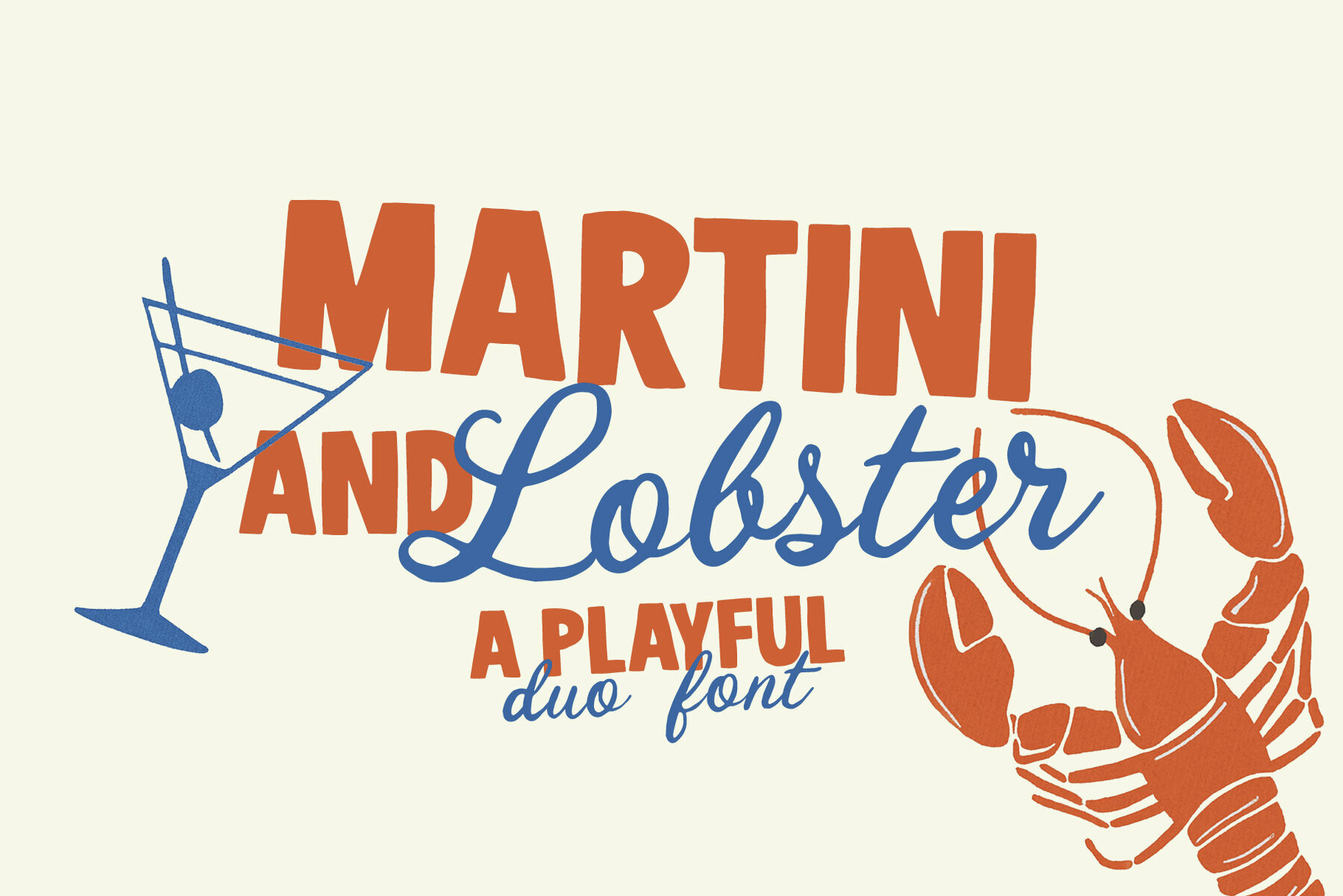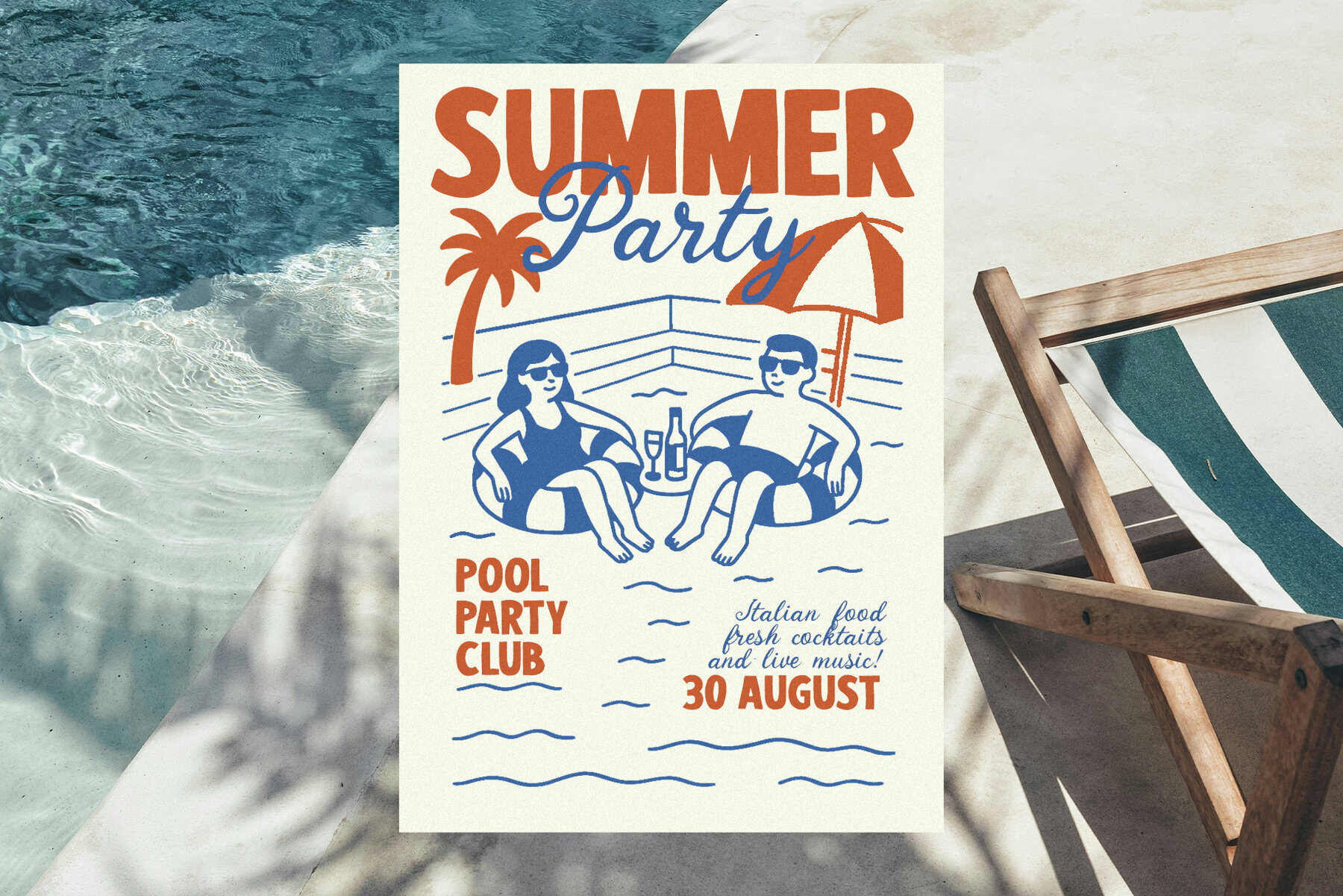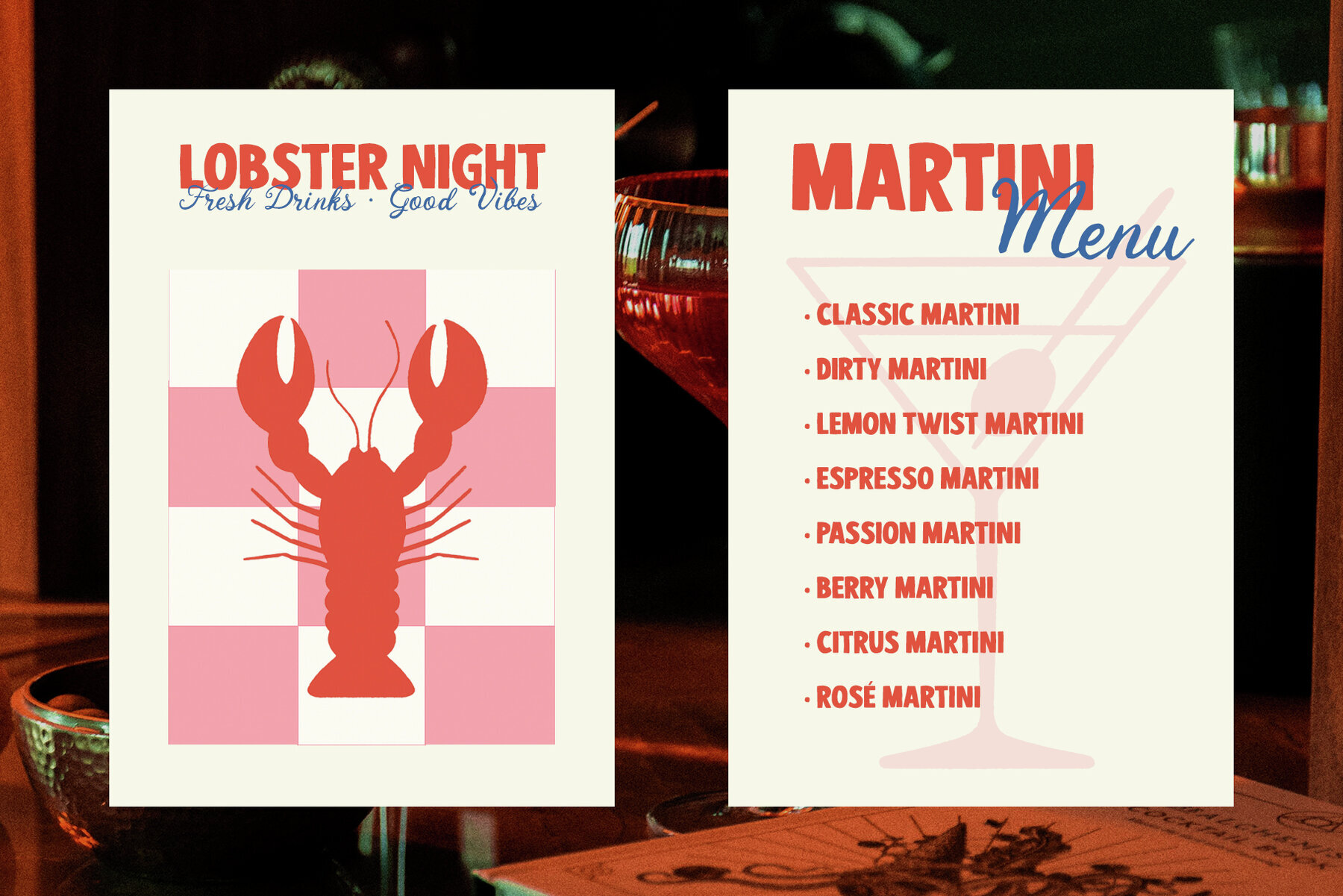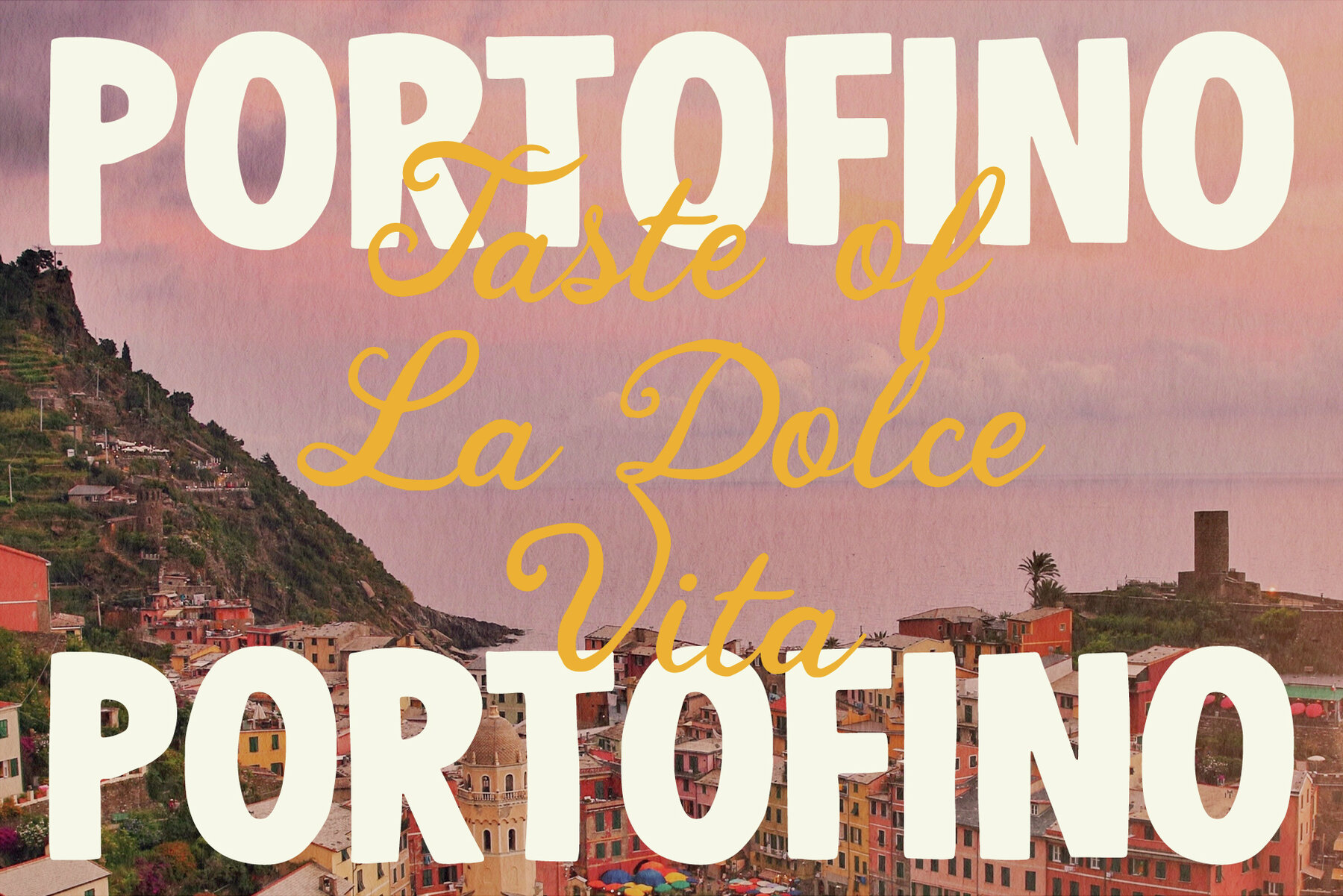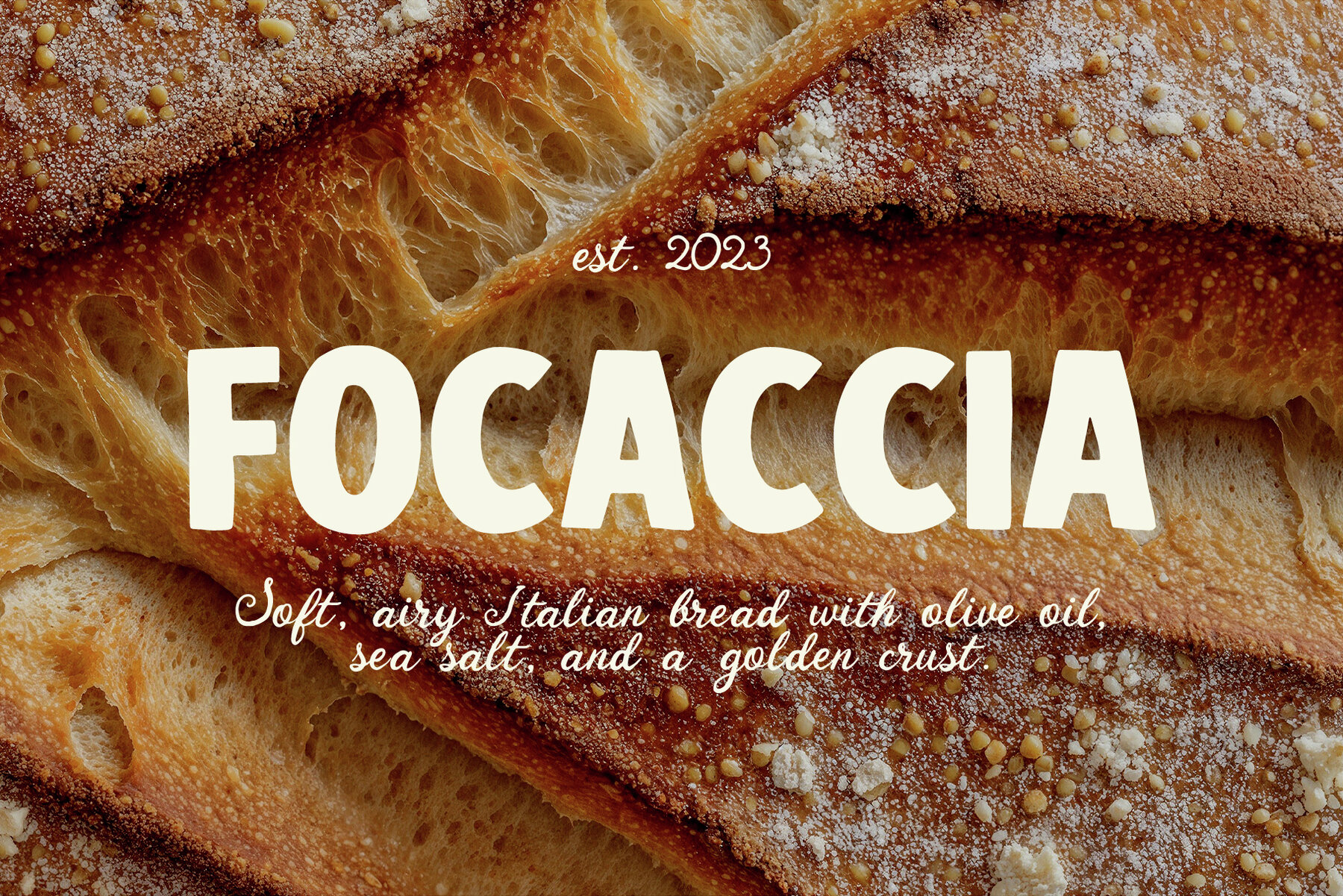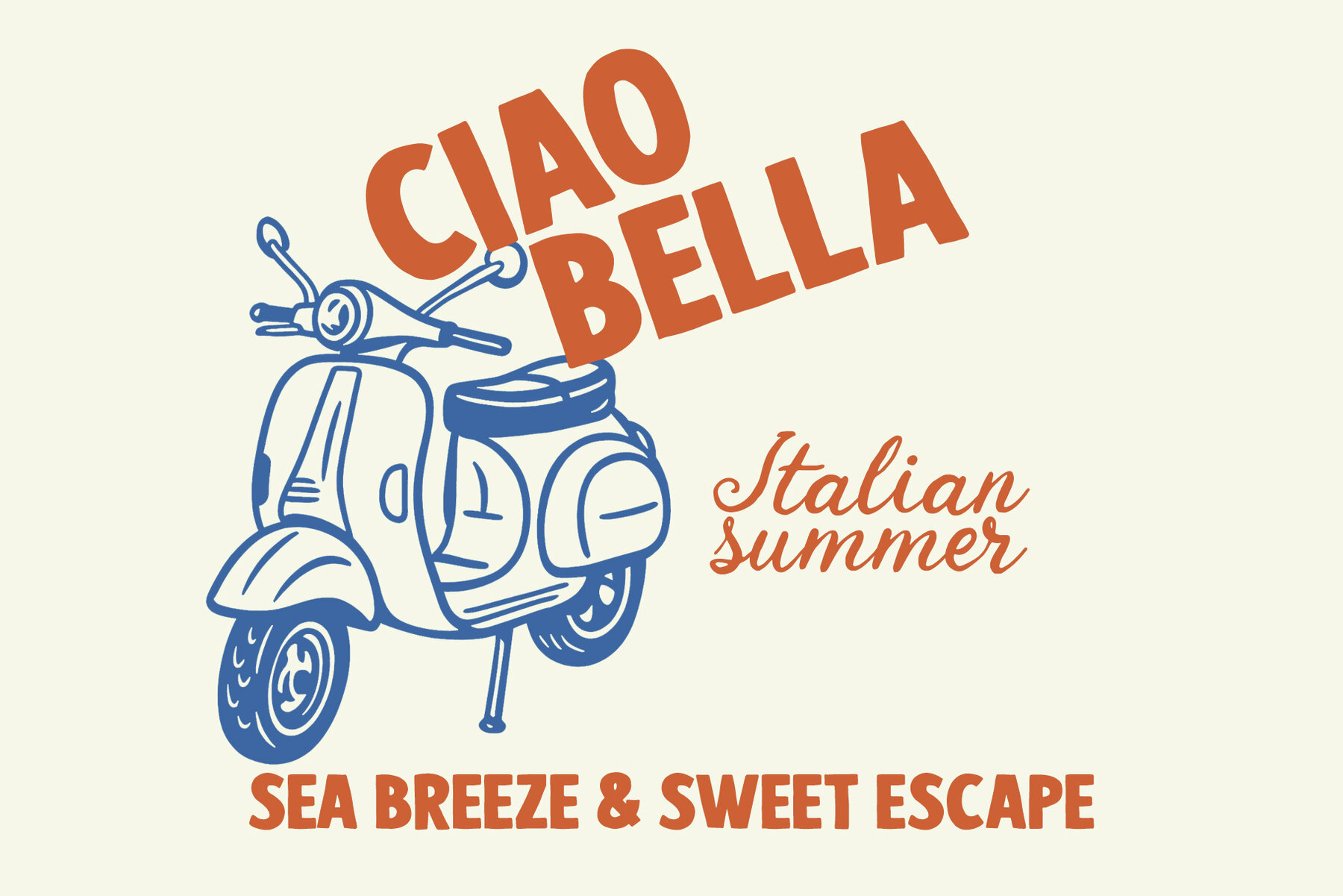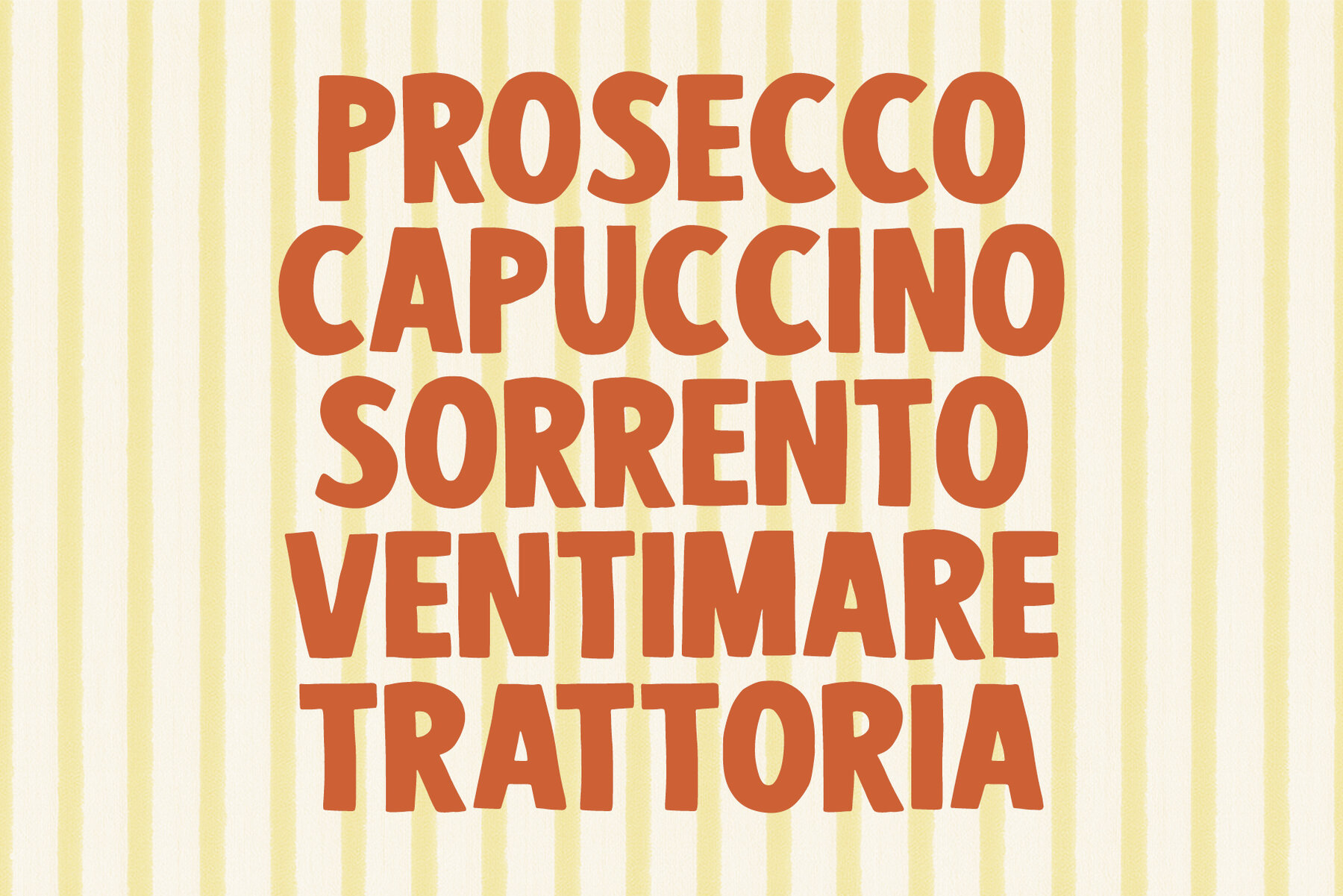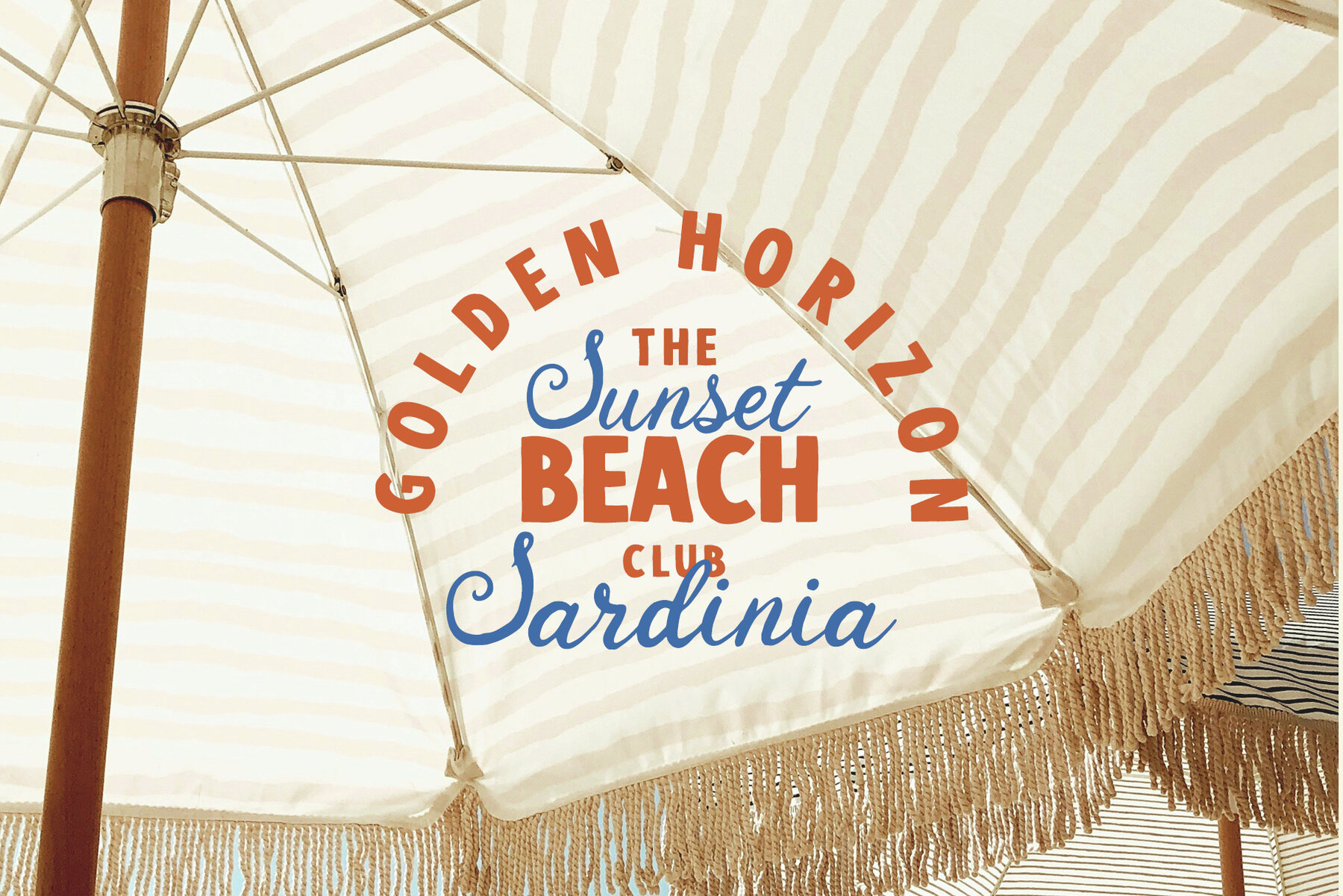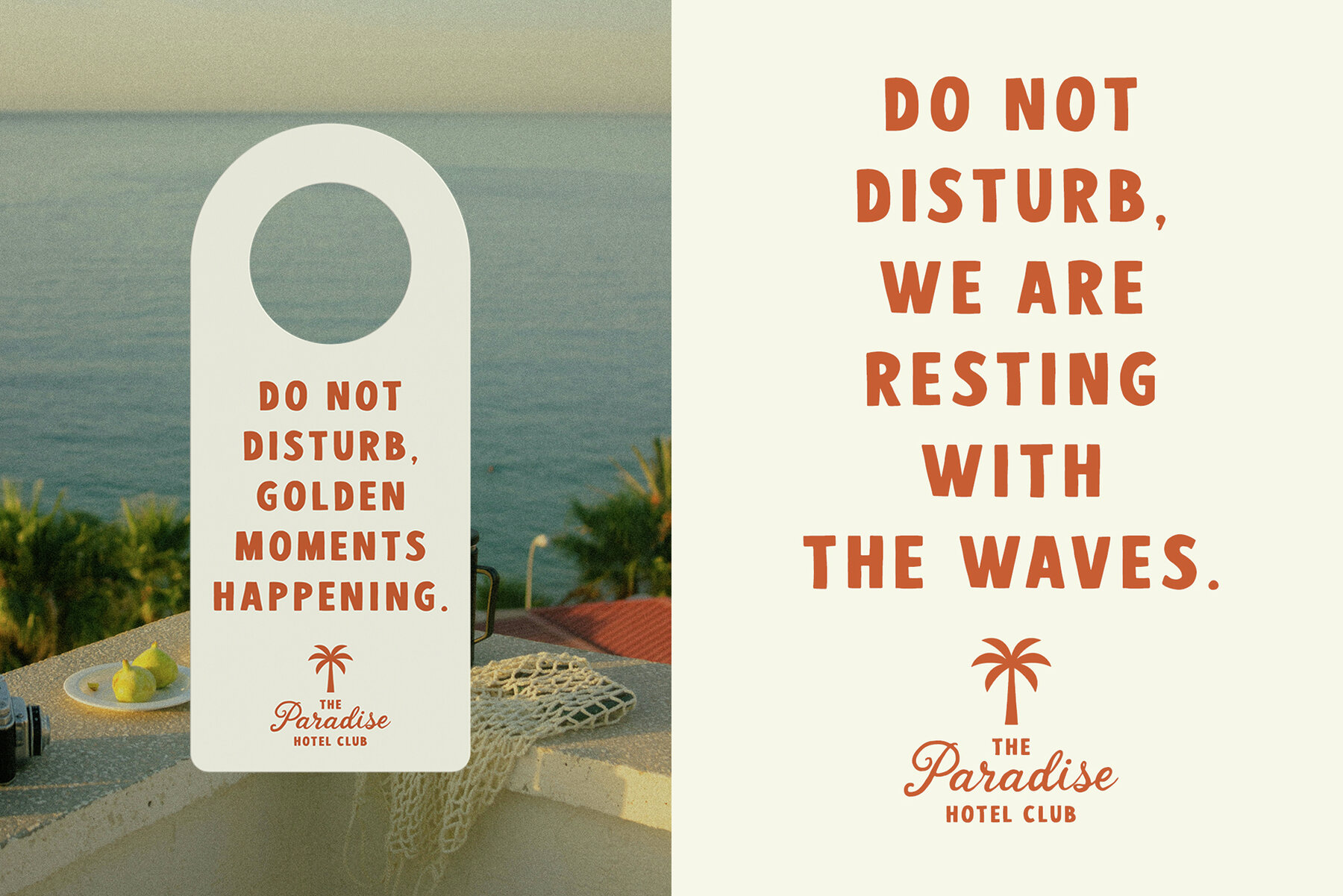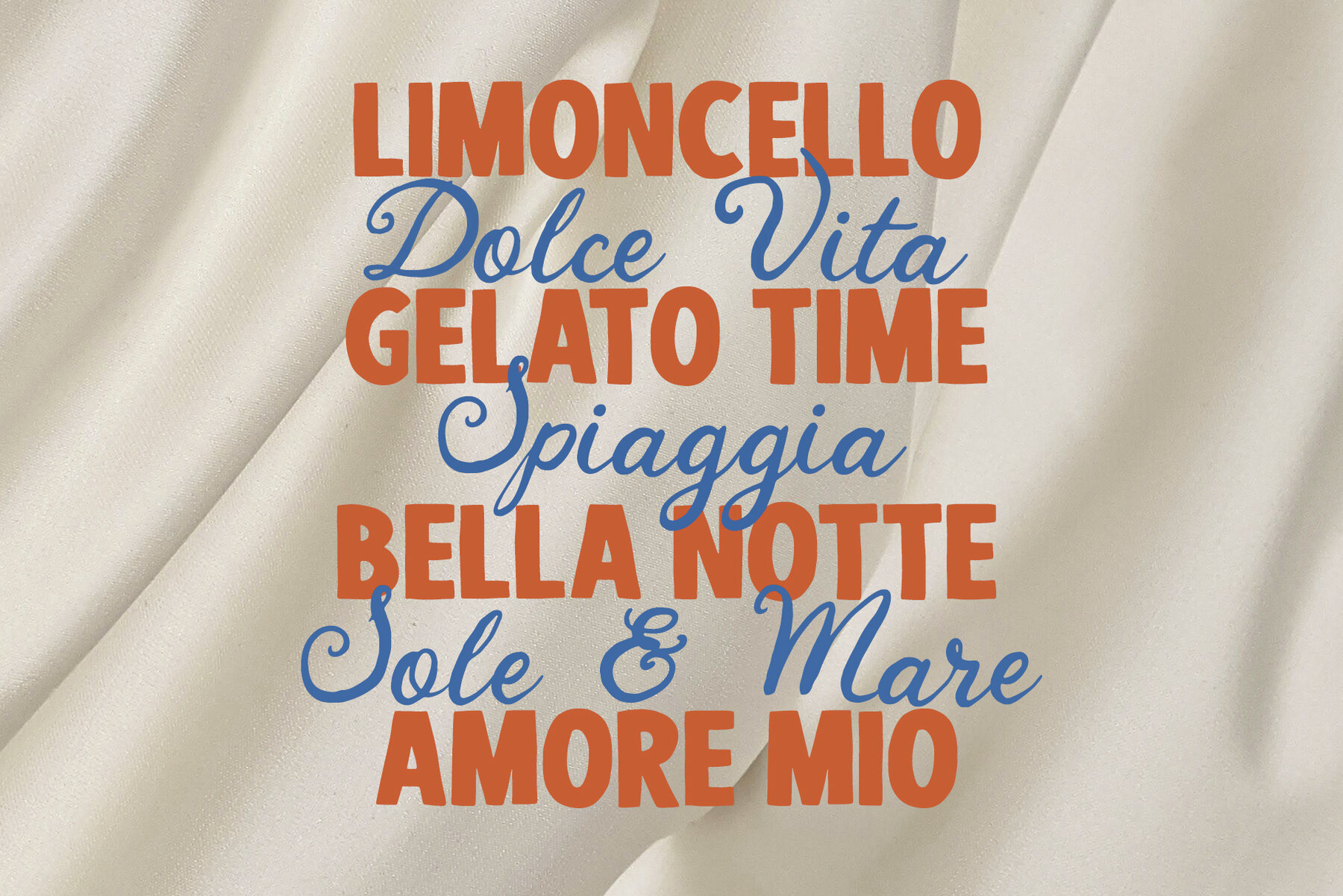
Martini and Lobster Font
Martini & Lobster is an engaging and versatile font pairing, combining bold retro sans with a fluid handwritten script. This duo injects personality and charm, ideal for creating eye-catching designs with a relaxed and stylish vibe. Perfect for both bold headlines and subtle accents, Martini & Lobster excels in various applications such as posters, café and bar menus, summer collections, packaging, logos, and social media graphics. Its design is especially suited for hospitality, fashion, and lifestyle projects, bringing the essence of cocktails, seaside nights, and vintage flair into every piece.Martini & Lobster: A Playful Font Duo
This font duo is perfect for branding, menus, invitations, and more. Embrace the creativity and unique style Martini & Lobster brings to your projects.